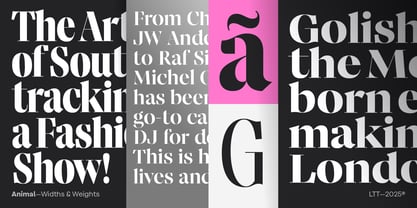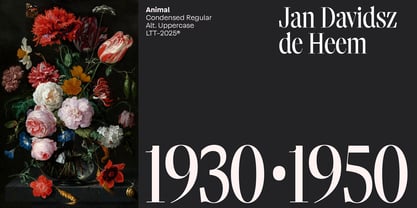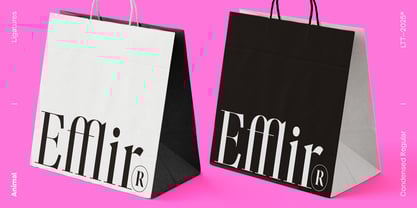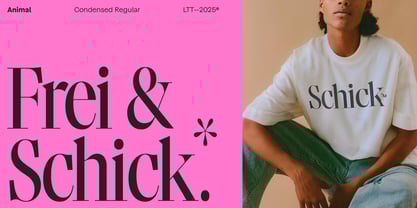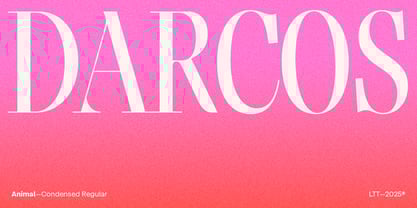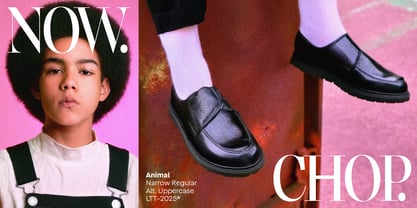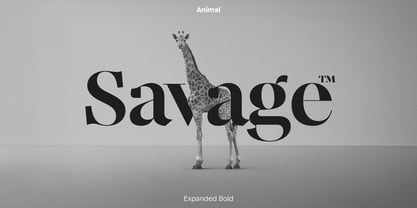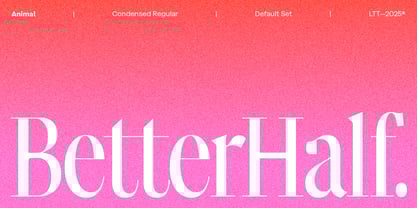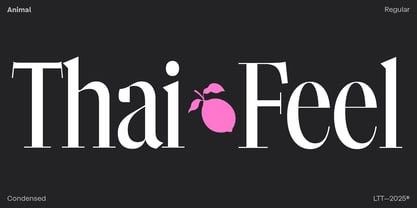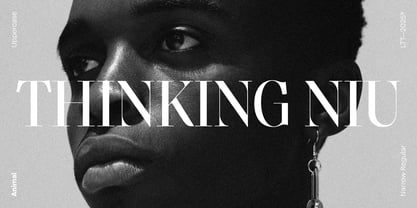
Animal
by Latinotype
The Animal Font Family was designed by Juan Bruce and published by Latinotype. Animal contains 12 styles and family package options.
A Wild Typeface.
Animal is a high-contrast serif with an untamed elegance. Its sharp details and striking forms create a look that's both bold and sophisticated—perfect for designs that demand attention. Drawing inspiration from the strength and balance of the animal kingdom, its dynamic structure blends fluid curves with dramatic contrasts. Unusual terminals and angular strokes lend Animal a distinctive, commanding presence.
Designed for versatility, the family comes in four widths—Wide, Normal, Condensed, and Narrow—each offered in three weights: Regular, Bold, and Black. This flexible system makes Animal an expressive choice for branding, posters, fashion campaigns, bold headlines, and packaging.
Animal moves with instinct. It's typography with teeth.